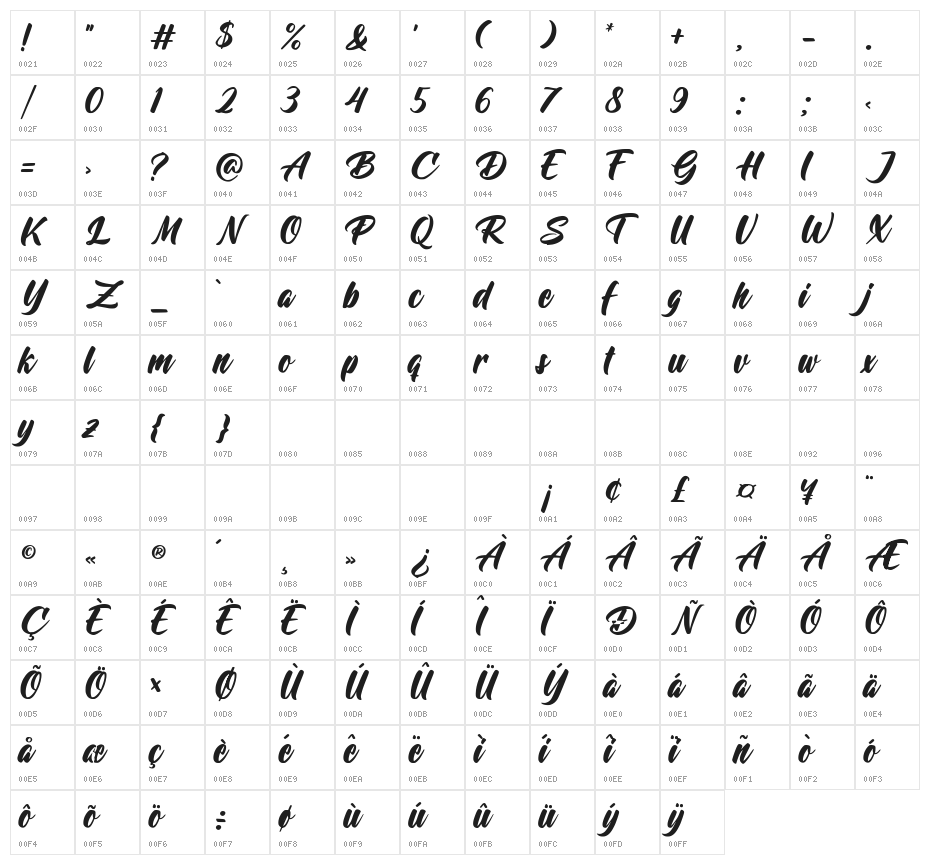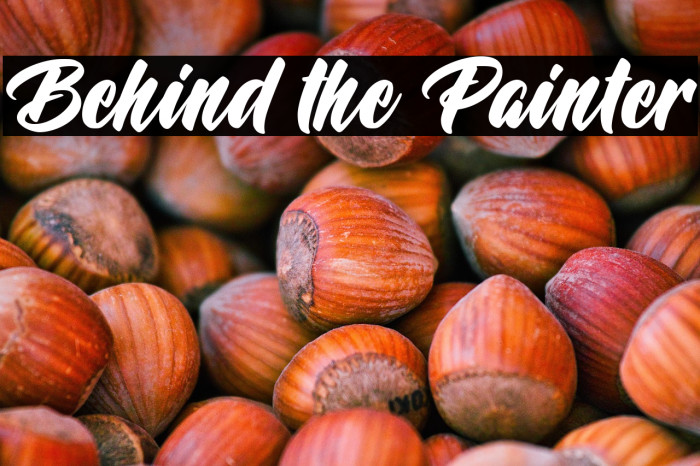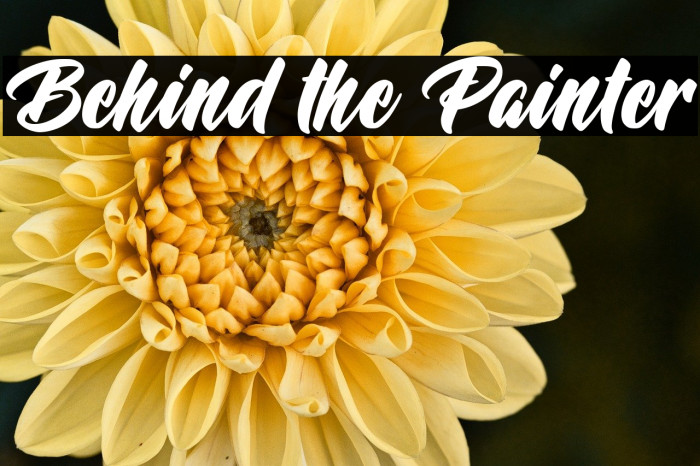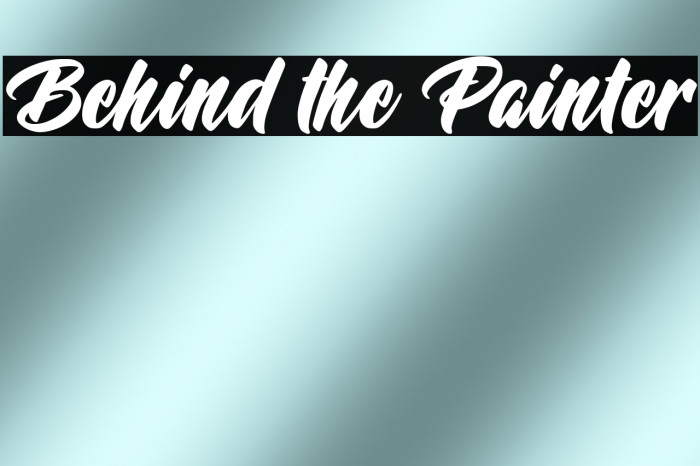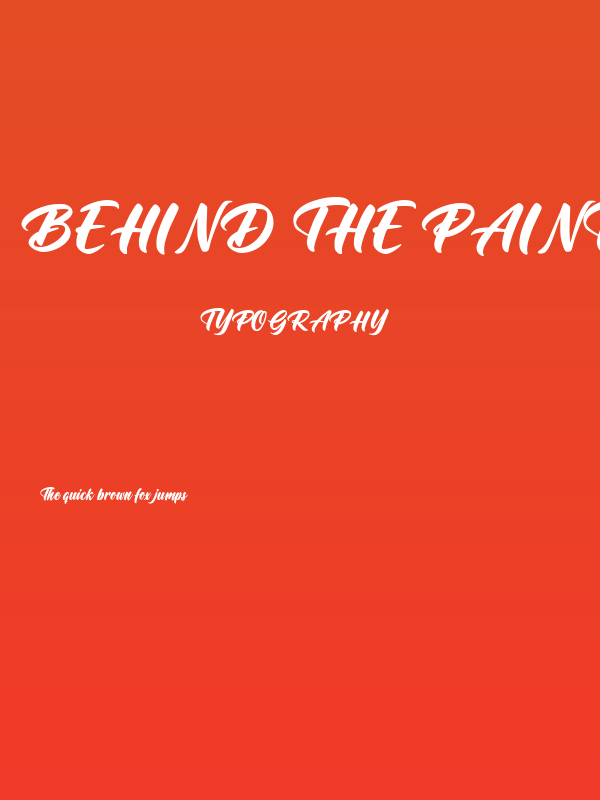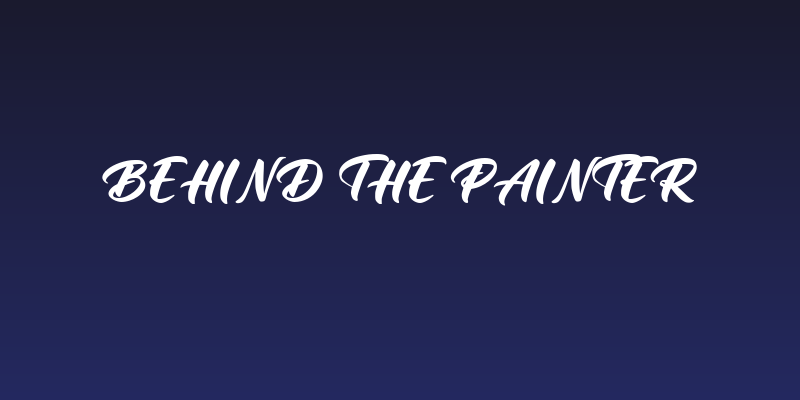
Behind the Painter Font
Behind the Painter Description
This font exhibits a bold, expressive style with a handwritten script appearance. The characters are fluid and dynamic, featuring smooth curves and a consistent stroke width that conveys a sense of elegance and creativity. The uppercase letters are slightly more formal, while the lowercase letters maintain a casual, flowing aesthetic. Numbers and special characters are designed to match the overall style, ensuring a cohesive look across all text elements. The font's design is suitable for projects that require a personal touch, such as invitations, greeting cards, or artistic branding. Its bold presence makes it ideal for headlines and titles, drawing attention with its unique flair.
| Use Case | Headlines, Artistic branding, Invitations |
| Proposed Projects | Ideal for invitations, greeting cards, artistic branding, headlines, and titles. |